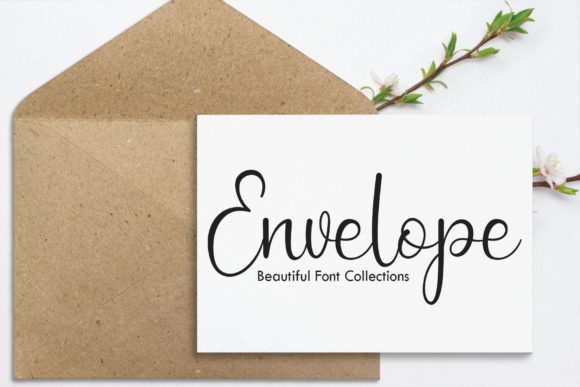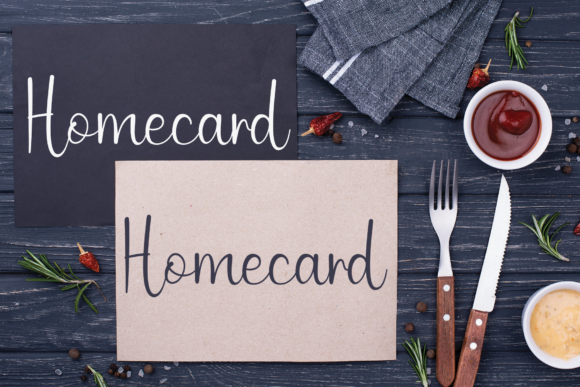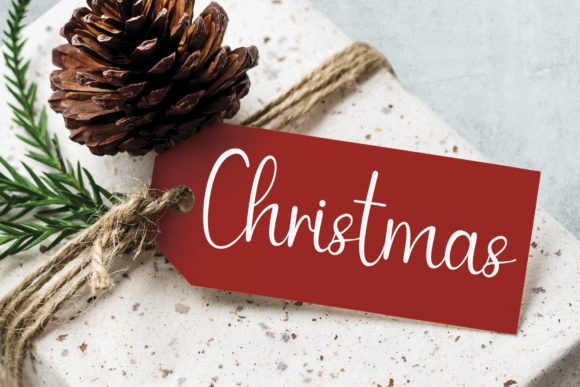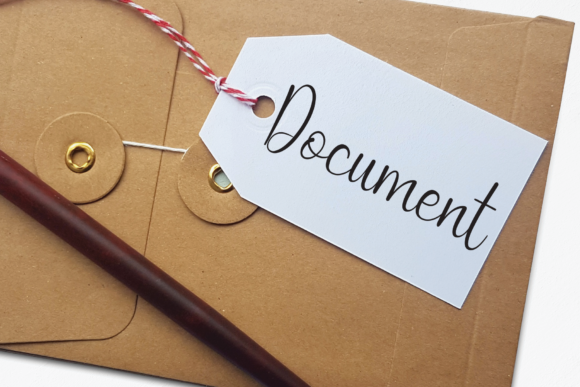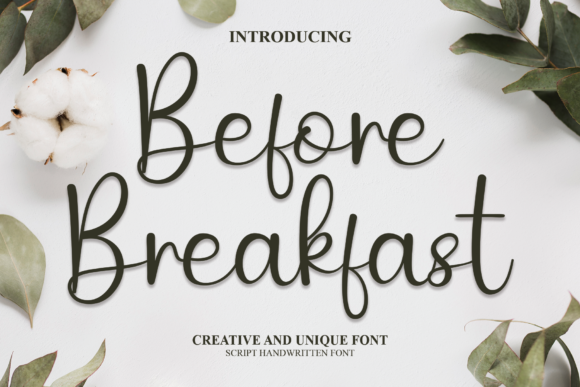
Introducing Before Breakfast Font: Elevate Your Designs with Elegant Handwritten Typography
In the world of design, typography plays a crucial role in conveying messages, evoking emotions, and creating lasting impressions. For designers, crafters, and DIY enthusiasts, finding the perfect font can be a daunting task. However, if you’re looking for a beautiful and flowing handwritten font to elevate your projects, look no further than Before Breakfast Font. In this article, we’ll dive into the world of Before Breakfast Font, exploring its features, uses, and benefits, and why it’s a must-have for anyone seeking impressive typography.
What is Before Breakfast Font?
Before Breakfast Font is a stunning handwritten font designed to add a touch of elegance and sophistication to any project. Its flowing curves, intricate details, and beautiful letterforms make it perfect for a wide range of applications, from wall hangings and wedding invitations to social media post logos, advertising, and product packaging.
Key Features of Before Breakfast Font
- Beautiful Handwritten Script: Before Breakfast Font boasts a gorgeous handwritten script that exudes elegance and refinement.
- Flowing Curves and Connections: The font features smooth, flowing curves and connections that create a sense of movement and fluidity.
- Intricate Details: Each letterform is carefully crafted with intricate details that add depth and character to the font.
- Versatile and Adaptable: Before Breakfast Font can be used in a variety of projects, from digital designs to print materials.
Uses of Before Breakfast Font
Before Breakfast Font is an incredibly versatile font that can be used in a multitude of projects, including:
- Wall Hangings and Signage: Add a touch of elegance to your wall hangings, signs, and posters with this beautiful font.
- Wedding Invitations and Stationery: Make your wedding invitations, stationery, and greeting cards truly special with Before Breakfast Font.
- Social Media Post Logos and Graphics: Elevate your social media presence with stunning logos, graphics, and typography.
- Advertising and Marketing Materials: Use Before Breakfast Font to create eye-catching advertising and marketing materials that grab attention.
- Product Packaging and Design: Add a touch of sophistication to your product packaging and design with this beautiful font.
- Labels and Watermarks: Use Before Breakfast Font to create elegant labels and watermarks for your products or photographs.
- Photography and Art: Add a touch of elegance to your photography and art projects with this beautiful font.
Benefits of Using Before Breakfast Font
So, why choose Before Breakfast Font for your projects? Here are just a few benefits:
- Unique and Eye-Catching: Before Breakfast Font is a unique and eye-catching font that will set your projects apart from the rest.
- Elegant and Sophisticated: The font’s elegant and sophisticated design makes it perfect for projects that require a touch of refinement.
- Easy to Read and Understand: Despite its intricate details, Before Breakfast Font is easy to read and understand, making it perfect for a wide range of applications.
- Customizable: The font can be customized to fit your specific needs, allowing you to add your own personal touch.
In conclusion, Before Breakfast Font is a beautiful and flowing handwritten font that is perfect for designers, crafters, and DIY enthusiasts looking to elevate their projects with elegant typography. With its unique features, versatility, and benefits, this font is a must-have for anyone seeking to add a touch of sophistication and refinement to their work. Whether you’re creating wall hangings, wedding invitations, social media post logos, or product packaging, Before Breakfast Font is sure to impress.